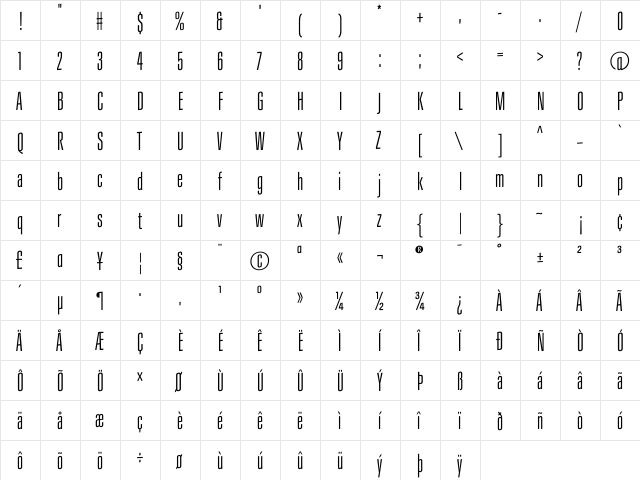
LanceCondensed Light
Design Context for LanceCondensed Typeface
LanceCondensed offers clean, dependable letterforms without strong stylistic allegiance, making it a practical choice for designers who need flexibility. Its slender proportions lend an understated elegance to any composition. The condensed width makes it efficient for tight spaces without sacrificing legibility.